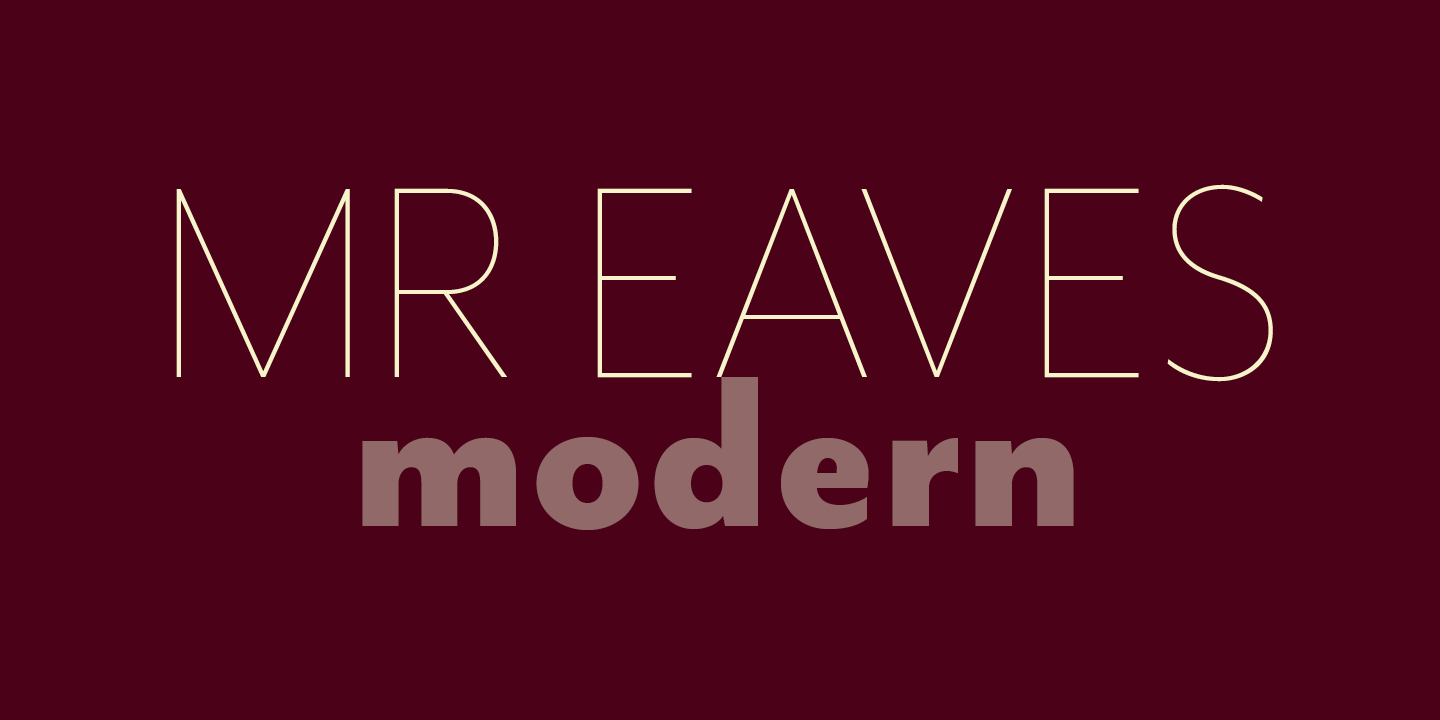
Mr Eaves Modern Font is perfect for contemporary architecture firms, design studio portfolios, modern art gallery materials, sophisticated magazine layouts, minimalist brand identities, cutting-edge tech companies, progressive publishing projects, avant-garde fashion brands, contemporary museum exhibitions, and refined digital interfaces.
Mr Eaves Modern Font is exciting because it represents the evolution of classic typography into contemporary perfection through its refined, modernist letterforms that honor typographic heritage while embracing progressive design principles and delivering messages with intellectual sophistication and architectural precision.
Mr Eaves Modern Font family includes Regular, Bold, Light, Sans, Italic, Condensed, Ultra-Light, and Display variations, offering designers a complete modernist toolkit to create sophisticated visual communications that bridge classical typography traditions with contemporary design innovation across cultural applications.
Mr Eaves Modern Font embodies the perfect synthesis of typographic tradition and contemporary innovation, making it an indispensable tool for design professionals, cultural institutions, and progressive brands that appreciate both historical typography knowledge and cutting-edge aesthetic sensibilities. This intellectually sophisticated typeface brings cultural authority to any design project, whether you're developing art gallery identities, creating architectural presentations, or designing editorial layouts for cultural publications. The expertly balanced character proportions of Mr Eaves Modern Font Free Download ensure exceptional readability while maintaining the distinctive personality that appeals to design-literate audiences who value both typographic heritage and contemporary innovation in their visual communications.
Design industry professionals consistently choose Mr Eaves Modern Font for architecture studios, design agencies, and cultural organizations because of its ability to communicate both historical knowledge and contemporary relevance. The font's sophisticated appearance makes it particularly effective for targeting educated, design-conscious audiences and creating brand experiences that demonstrate deep appreciation for typographic craft.
Mr Eaves Modern Font excels in cultural and creative applications where artistic merit and intellectual engagement are paramount. Museums, galleries, and design schools rely on this font to create materials that reflect their commitment to advancing design culture while honoring typographic traditions.
The publishing and technology sectors have embraced Mr Eaves Modern Font for progressive publications, design software interfaces, and contemporary digital platforms. Its sophisticated visual character helps organizations create communications that appeal to design professionals and culturally aware consumers seeking both aesthetic excellence and intellectual depth in their design consumption and professional tools.